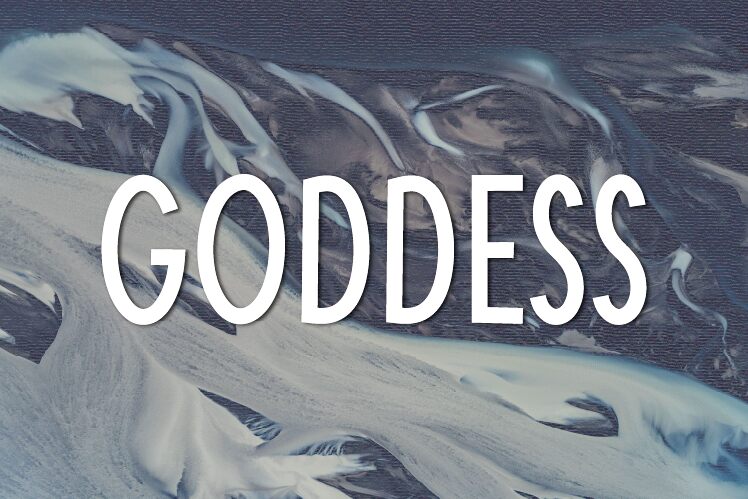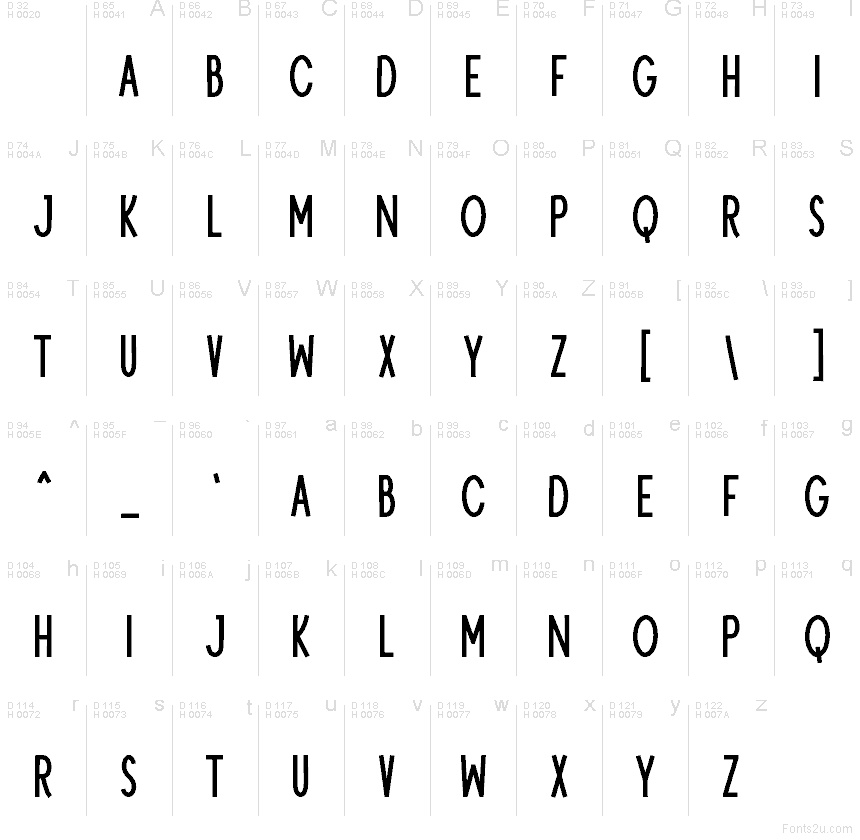
Goddess
Goddess font by HannaBie Creative Studio is a free decorative display typeface that grabs attention with tall, condensed letters and inky, hand-drawn edges. The strokes feel slightly uneven and organic, like bold marker lines pulled quickly across paper, giving each word a lively, almost theatrical presence while staying legible at a glance. Its narrow shapes let you squeeze strong headlines into tight spaces without losing drama or impact.
Using Goddess, this free font shines on poster titles, book covers, bold social graphics, zine layouts, packaging, and logo wordmarks that need a raw, expressive voice. It works beautifully when you let it go big and bold, then pair it with a clean sans serif in smaller text for contrast and clarity.